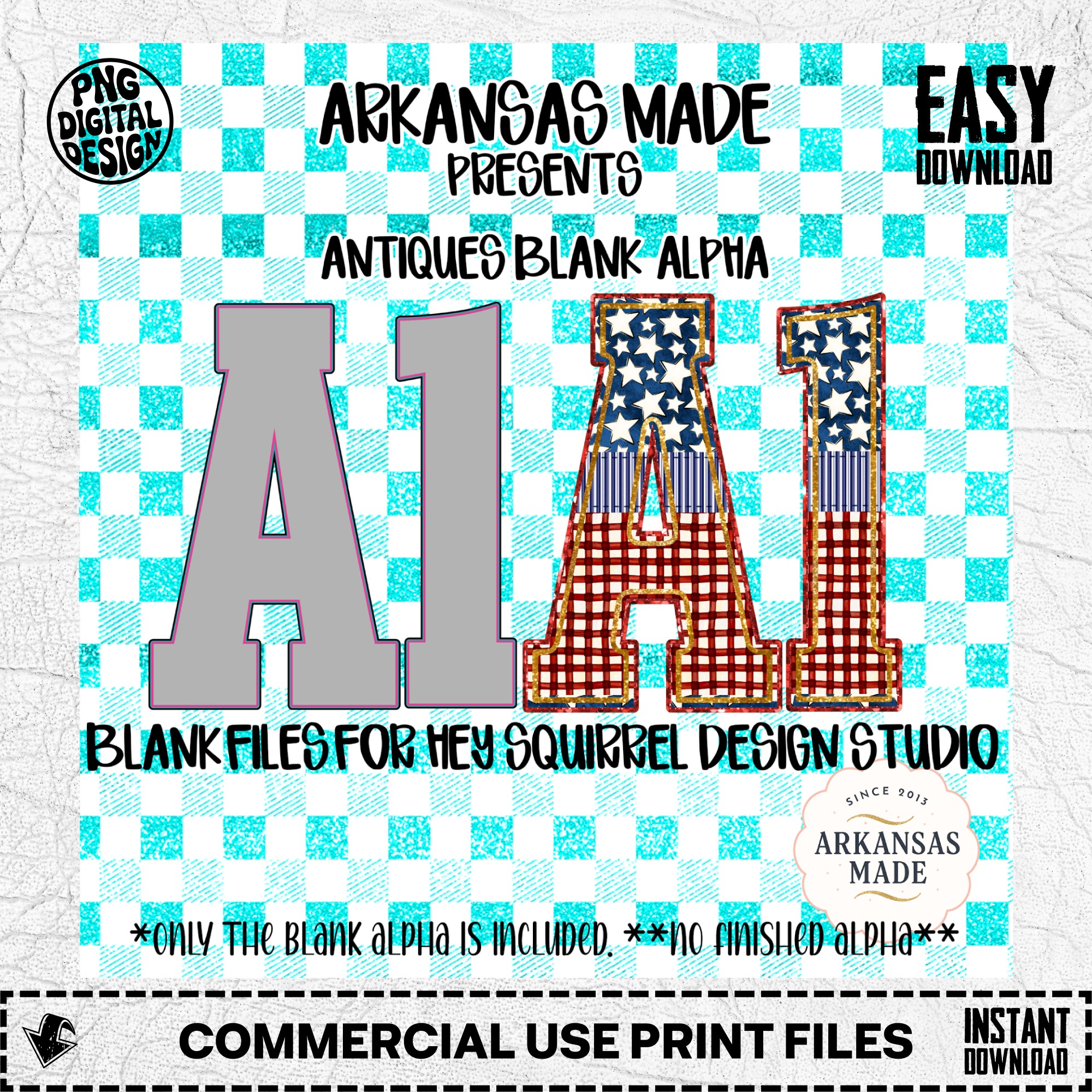
Antiques Blank Alpha PNGs for Hey Squirrel Design Studio – perfect for patriotic crafts and custom designs! Create unique, Americana-themed projects with ease. Unleash your creativity with this versatile digital alpha kit, specifically designed for Hey Squirrel Design Studio users. This blank alpha lets you infuse a touch of vintage Americana into your digital projects, from custom apparel to personalized home decor. Ideal for digital crafters, graphic designers, and anyone looking to create unique gifts or products for patriotic holidays like the 4th of July, Memorial Day, or Veterans Day. Get started on your next personalized design today!